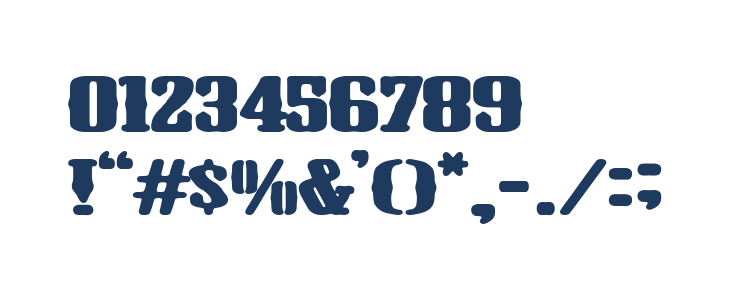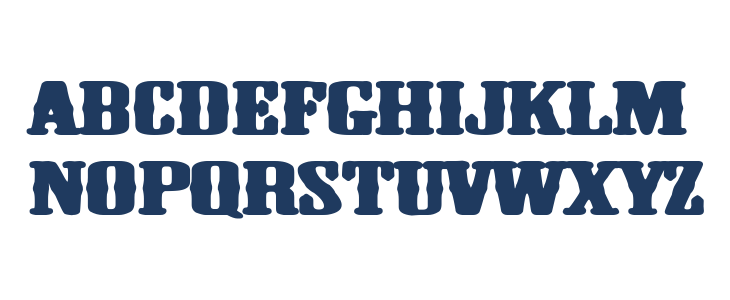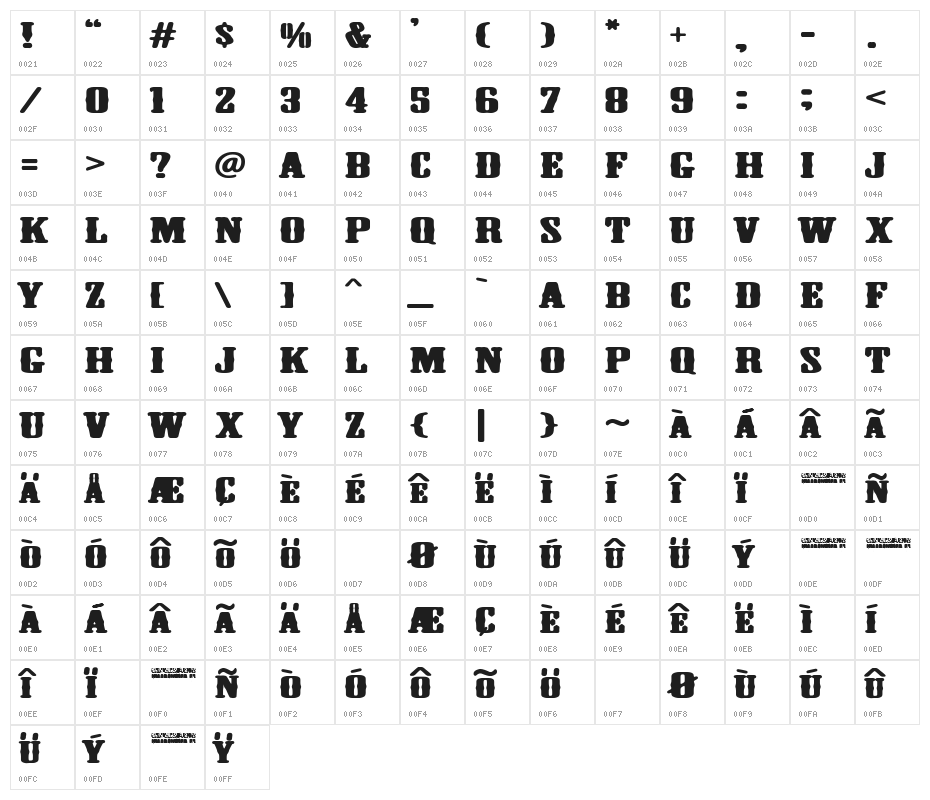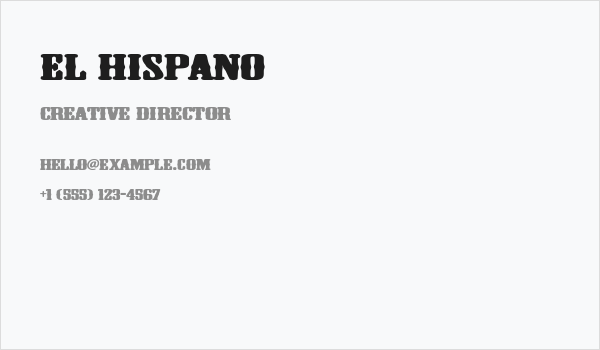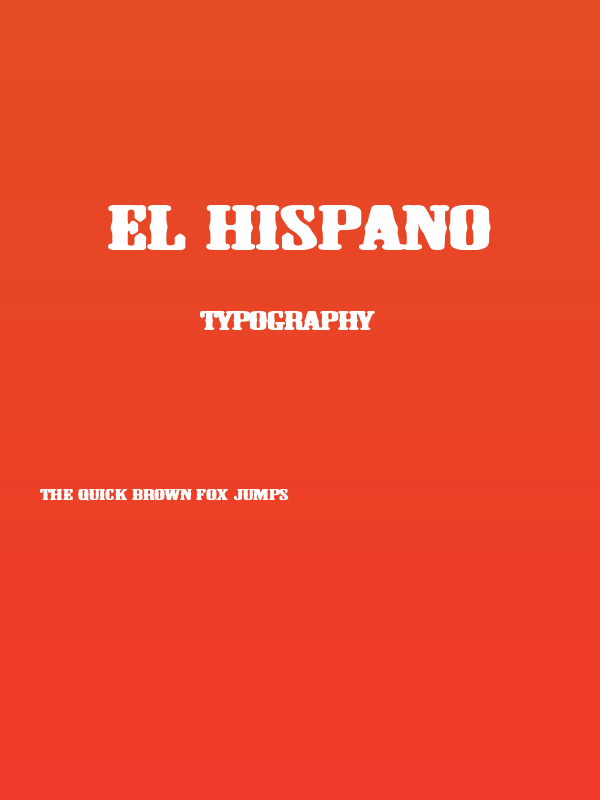
El Hispano Font
El Hispano Description
A bold, slab serif typeface with heavy, blocky letterforms and rounded terminals, evoking a vintage Western or circus poster style. The characters are uniformly wide with minimal contrast in stroke thickness, and the overall appearance is robust and decorative.
| Overall Style | Vintage, Decorative, Western |
| Use Case | Headlines, Posters, Logos, Signage |
| Proposed Projects | Posters, signage, branding for themed events, packaging, headlines, and display graphics. |